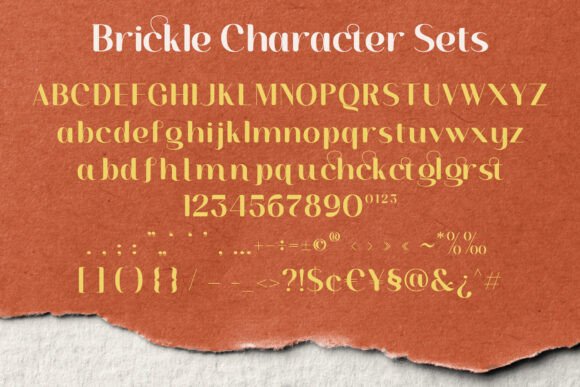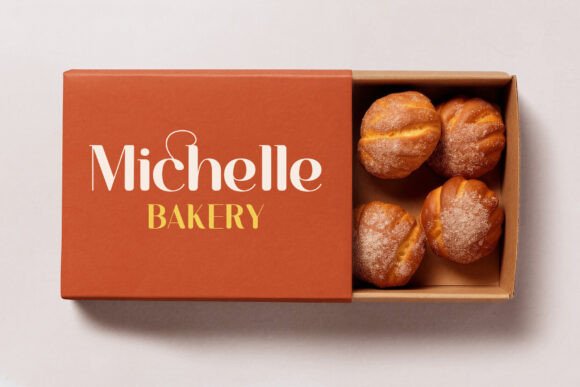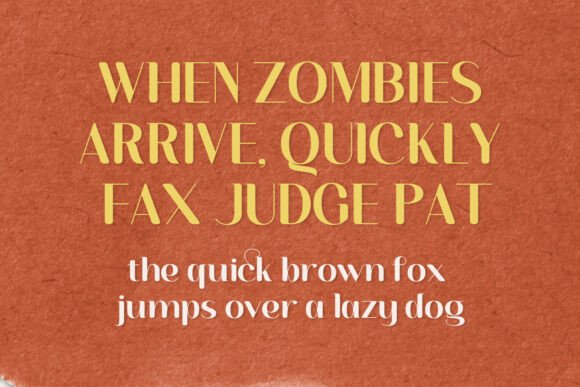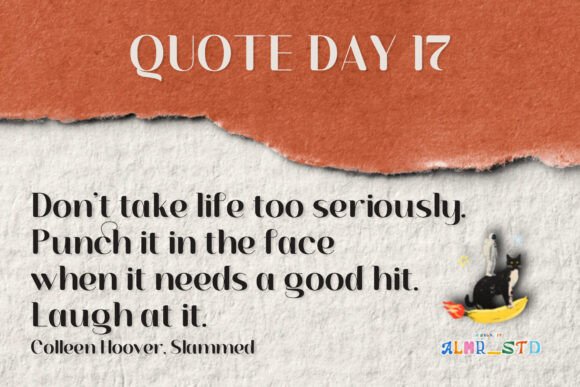
Introducing Brickle: The Modern Serif Font for Creative Projects
In the world of typography, a good font can make all the difference in the success of a design project. Whether you’re a professional designer or a crafty DIY enthusiast, finding the right font can be a daunting task. That’s why we’re excited to introduce Brickle, a modern serif font that’s perfect for a wide range of creative projects.
What is Brickle Font?
Brickle is a modern serif font that’s designed to bring a touch of elegance and sophistication to your designs. With its clean lines, classic proportions, and subtle flair, Brickle is the perfect choice for anyone looking to add a professional touch to their work. Whether you’re working on a branding project, creating a logo, or designing social media posts, Brickle is the ideal font to help you achieve your goals.
What Makes Brickle So Versatile?
One of the things that sets Brickle apart from other fonts is its incredible versatility. This font is suitable for a wide range of applications, including:
- Branding projects: Use Brickle to create a consistent visual identity for your business or organization.
- Logos: Brickle’s classic proportions make it perfect for creating logos that are both timeless and memorable.
- Social media posts: Add a touch of sophistication to your social media posts with Brickle’s elegant serif lines.
- Advertisements: Use Brickle to create eye-catching ads that grab attention and communicate your message clearly.
- Labels and product packaging: Brickle is the perfect choice for creating labels and packaging that stand out on store shelves.
- Photography: Add a professional touch to your photography with Brickle’s elegant typography.
- Wedding designs: Use Brickle to create beautiful wedding invitations, programs, and other stationery.
- Watermarks: Protect your images with Brickle’s subtle yet elegant watermark font.
- Invitation product designs: Create stunning invitations and other paper products with Brickle’s classic proportions.
- Stationery: Use Brickle to create professional-looking stationery that makes a great impression.
Why Choose Brickle?
So why should you choose Brickle for your next design project? Here are just a few reasons:
- Modern yet classic: Brickle’s modern serif design combines the best of both worlds, making it perfect for designers who want to create something new and fresh yet still timeless.
- Elegant and sophisticated: Brickle’s clean lines and classic proportions make it the perfect choice for designers who want to add a touch of elegance and sophistication to their work.
- Highly versatile: Whether you’re working on a branding project or creating social media posts, Brickle is the perfect font to help you achieve your goals.
- Easy to read: Brickle’s clear and legible design makes it easy to read, even at small sizes.
Tips for Using Brickle
Here are a few tips for getting the most out of Brickle:
- Experiment with different sizes: Brickle looks great at a wide range of sizes, from large headings to small body text.
- Play with color: Brickle’s classic design looks great in a wide range of colors, from bold and bright to subtle and muted.
- Pair it with other fonts: Brickle pairs well with a wide range of other fonts, making it easy to create interesting and dynamic typography.
In conclusion, Brickle is a modern serif font that’s perfect for designers and crafters who want to add a touch of elegance and sophistication to their work. With its clean lines, classic proportions, and subtle flair, Brickle is the ideal choice for a wide range of creative projects. Whether you’re working on a branding project, creating social media posts, or designing wedding invitations, Brickle is the perfect font to help you achieve your goals.